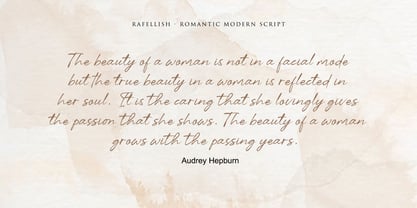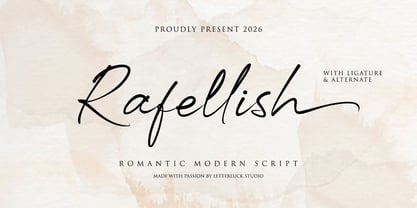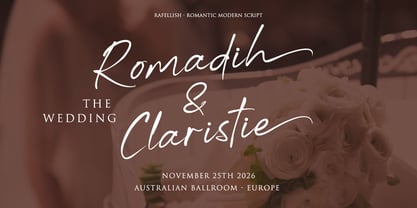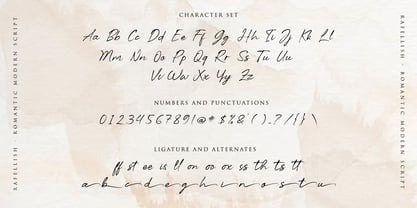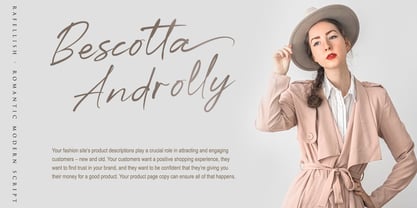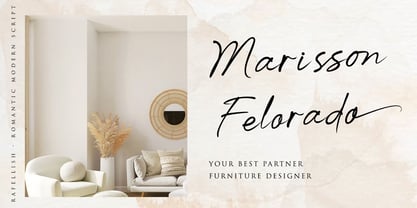
Rafellish
by Letterluck
The Rafellish Font Family was designed by Bayu Tri Ratman and published by Letterluck. Rafellish contains 1 styles. More about this family
Rafellish is a Romantic Modern Script Font designed for elegant aesthetics. In the realm of design, typography embodies emotion transformed into form. This font is meticulously crafted to convey beauty, intimacy, and timeless sophistication. Each curve in its strokes exudes elegance, making it an ideal choice for wedding invitations, brand identities, greeting cards, and editorial design. As a romantic modern script font, Rafellish harmoniously combines the softness of handwriting with the refinement of modern calligraphy. It is perfect for designers who desire both delicacy and clarity in their creative projects.
Rafellish